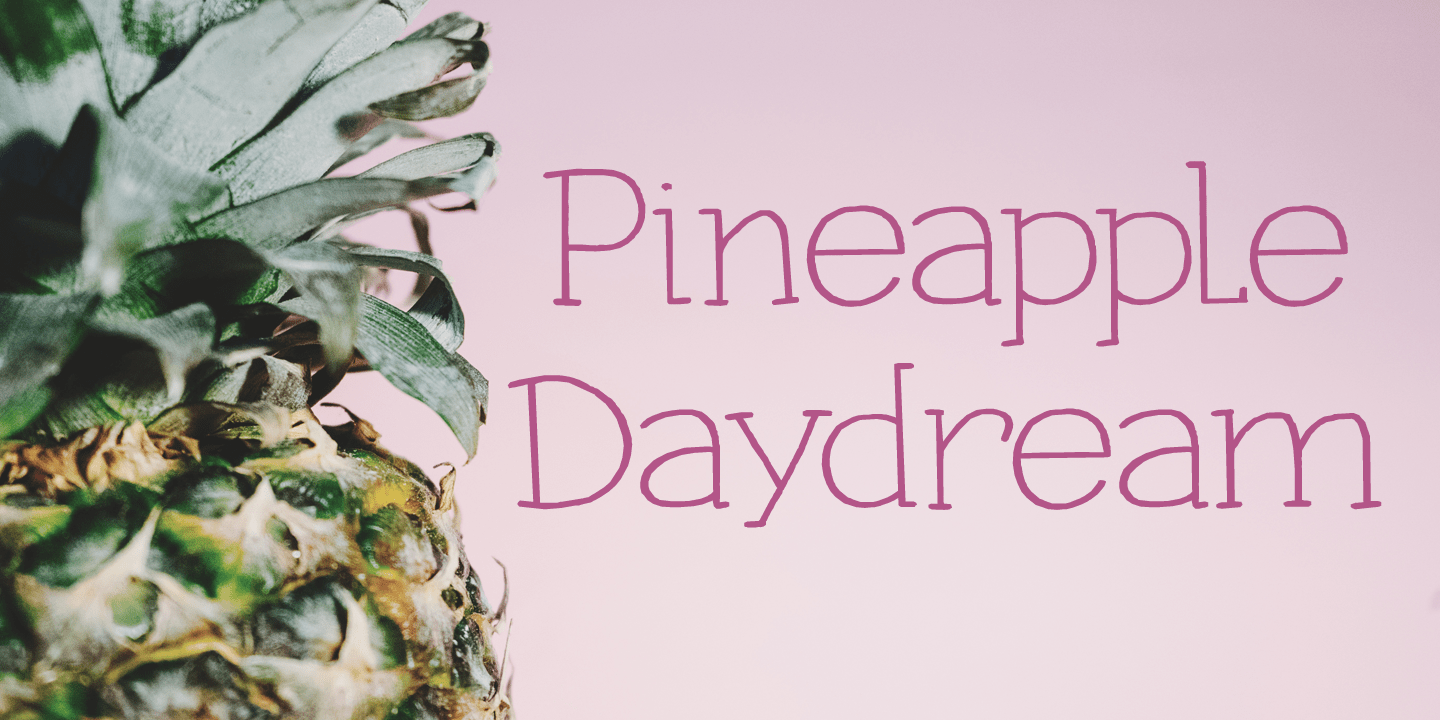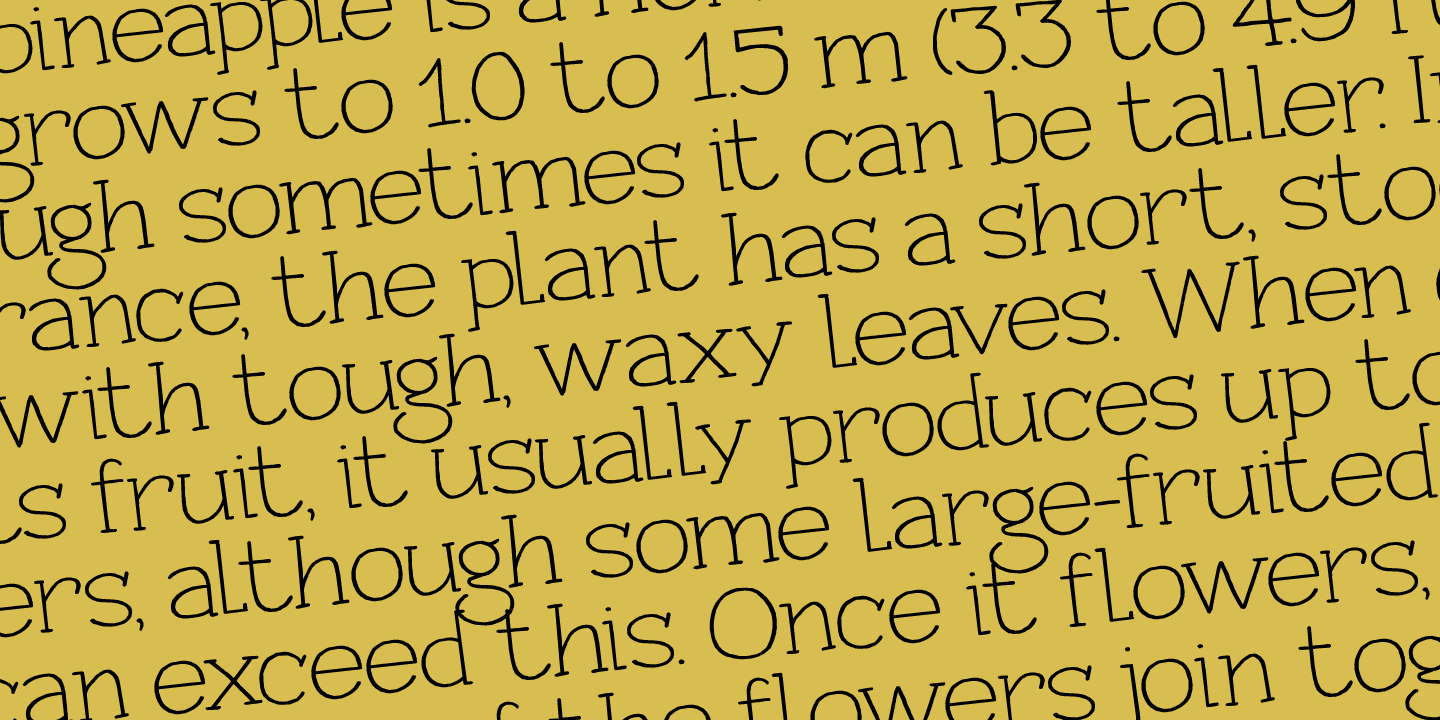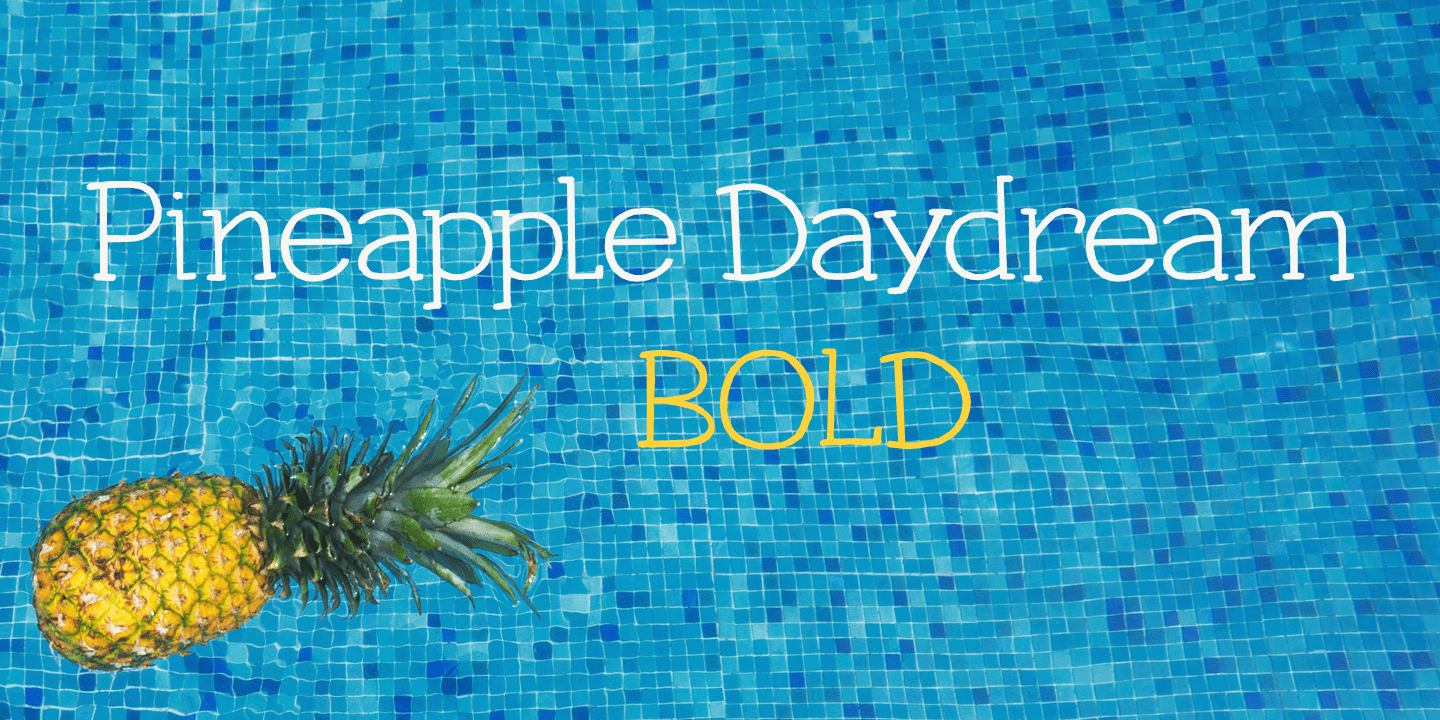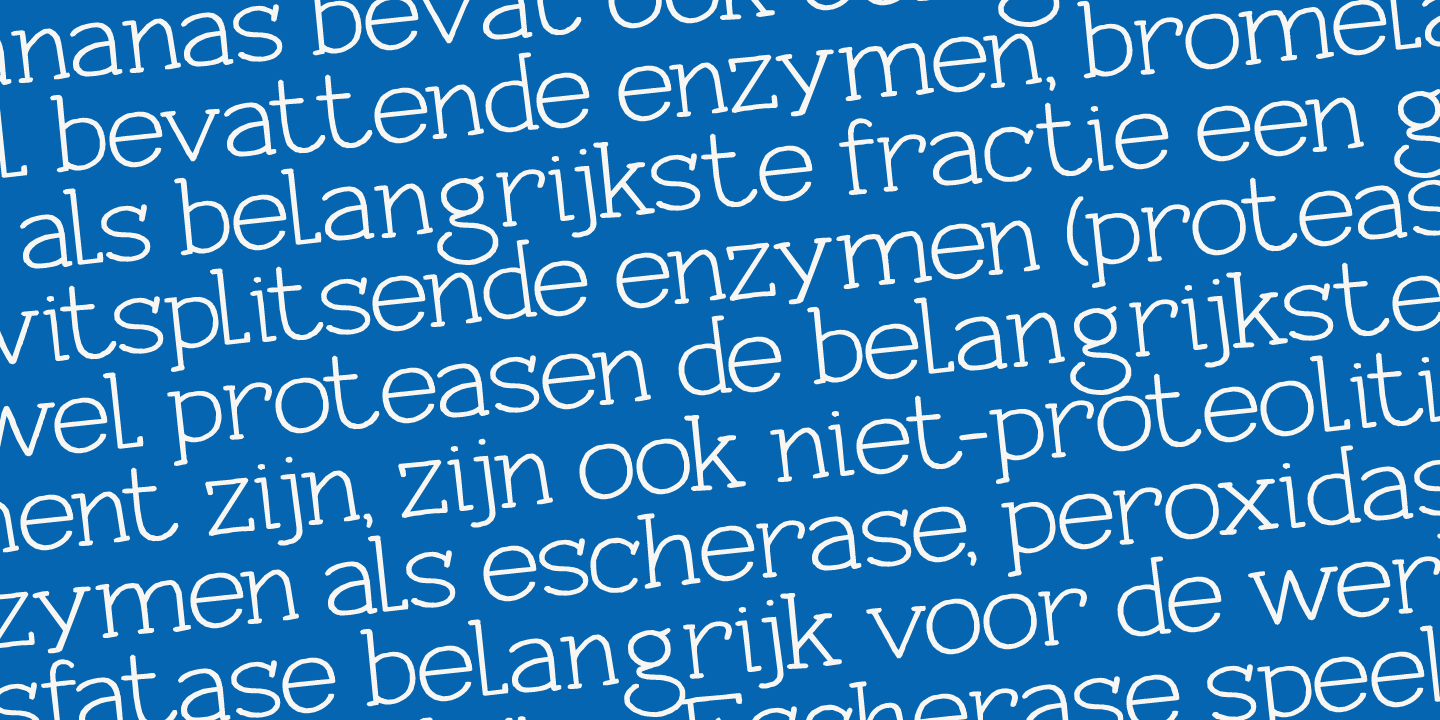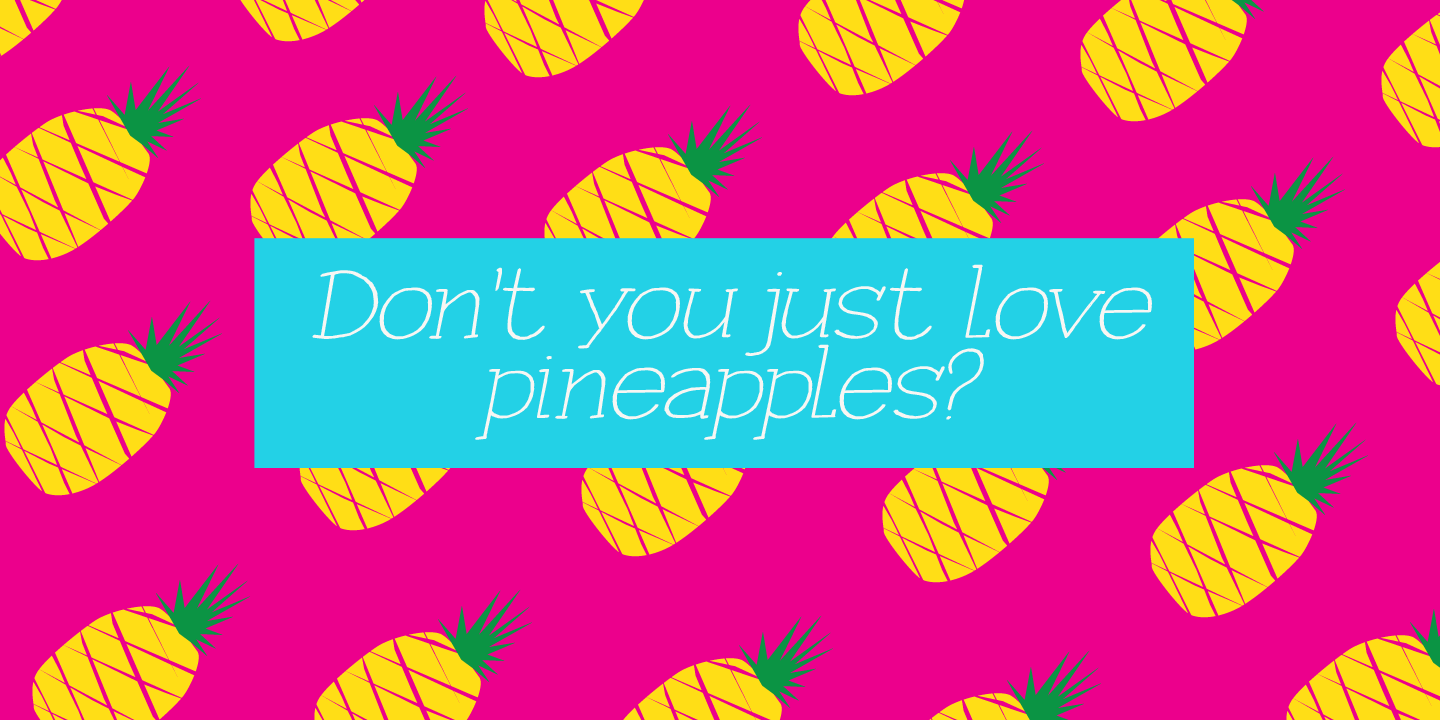
Pineapple Daydream
I bought a pineapple the other day, because my kids really like pineapples. Ok, ok, it may not sound like something special to you - but keep in mind that pineapples in Holland are an expensive fruit. We mostly get the canned ones (which I don't like too much).
Anyway, when I was slicing up the pineapple, I thought I should name a font after this bizarre, but tasty, fruit. And so I did.
Pineapple Daydream is a handmade serif. I am not sure how to classify it, but I am sure you'll figure that out. Comes with a plantation of diacritics.